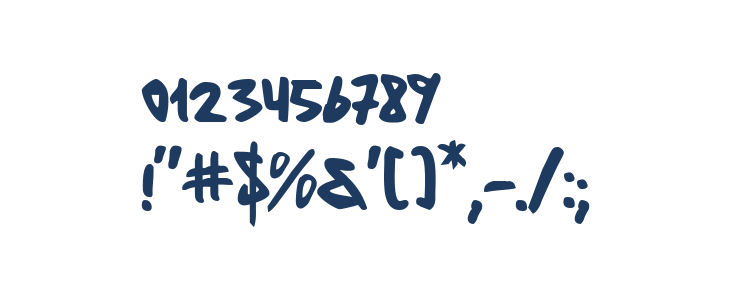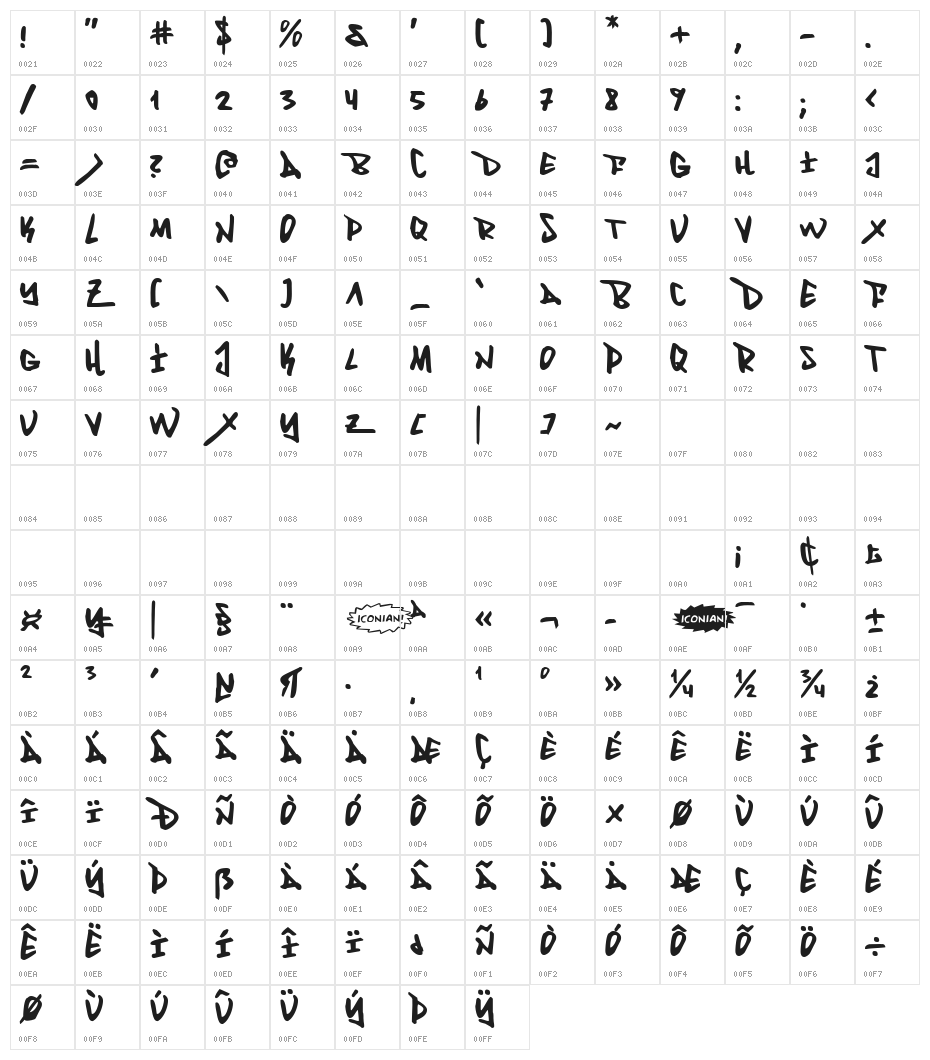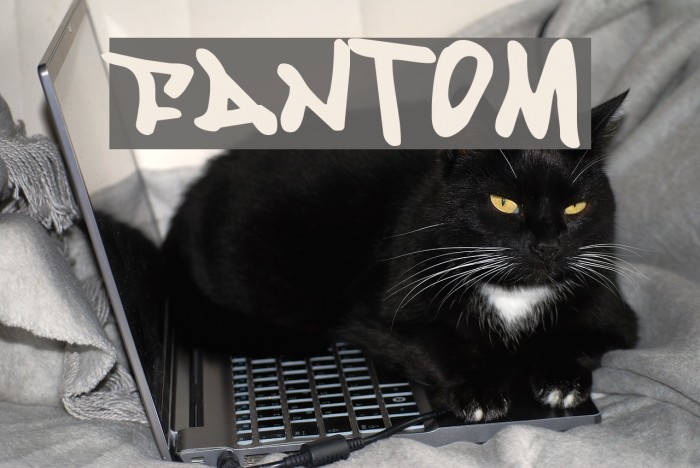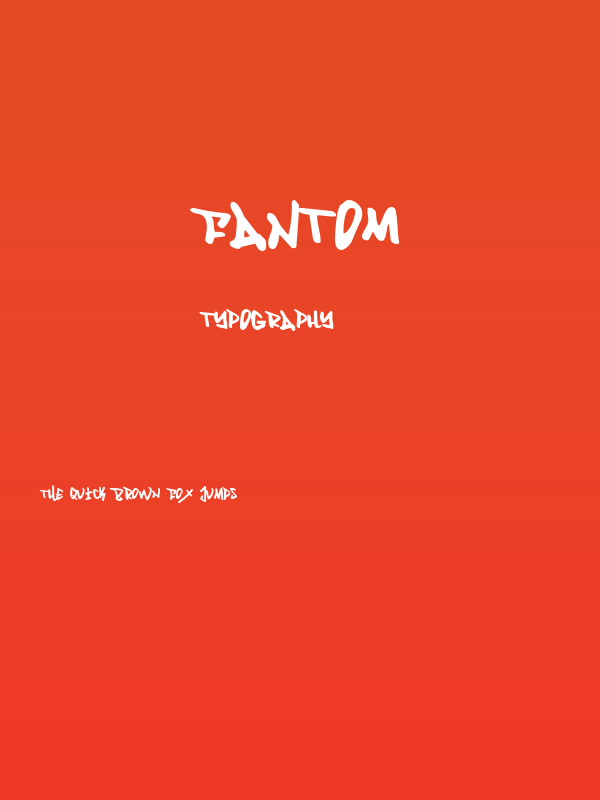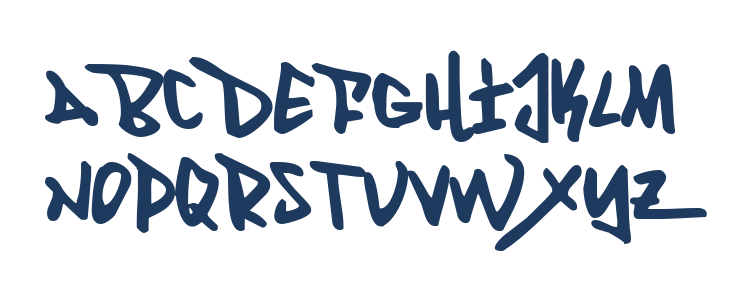
Fantom Font
Fantom Description
This font features a bold and dynamic handwritten style, characterized by its energetic and slightly chaotic appearance. The letters are crafted with thick strokes and exhibit a playful, graffiti-like aesthetic. The uppercase and lowercase letters maintain a consistent style, with exaggerated curves and angles that give the font a unique flair. Numbers and special characters are equally expressive, adding to the overall boldness of the design. This font is ideal for projects that require a strong visual impact and a sense of creativity.
| Use Case | Logos, Headlines, Posters |
| Proposed Projects | Perfect for street art designs, urban-themed posters, edgy branding, and creative social media graphics. |